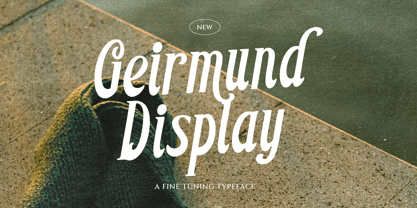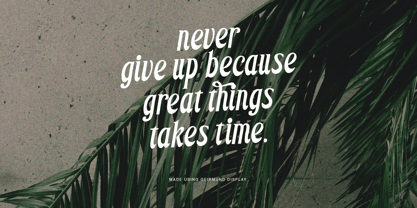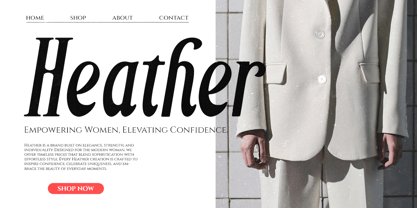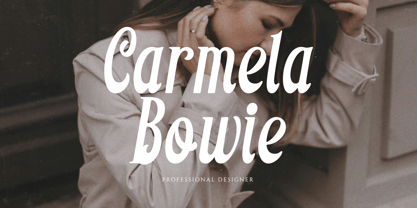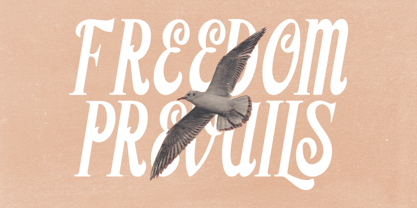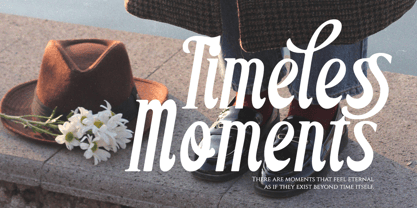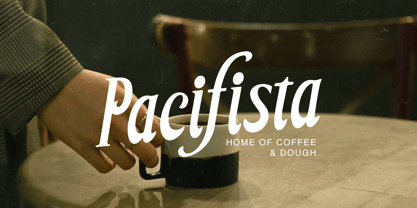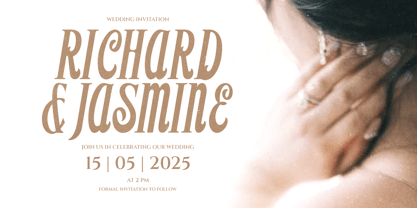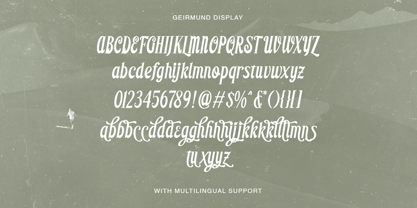
Geirmund Display
The Geirmund Display Font Family was designed by Hendry Juanda and published by Letterhend. Geirmund Display contains 1 styles. More about this family
Introducing Geirmund Display, a finely crafted typeface that blends elegance with vintage charm. Designed with smooth curves and dynamic letterforms, this display serif is perfect for branding, editorial design, logos, packaging, and more.
Its refined yet expressive strokes make it ideal for projects that require sophistication with a bold touch. Whether you’re working on luxury branding, a stylish magazine, or an eye-catching advertisement, Geirmund Display delivers a timeless and striking appeal.
Features :
• Uppercase & lowercase
• Numbers and punctuation
• Alternates Character
• Multilingual support